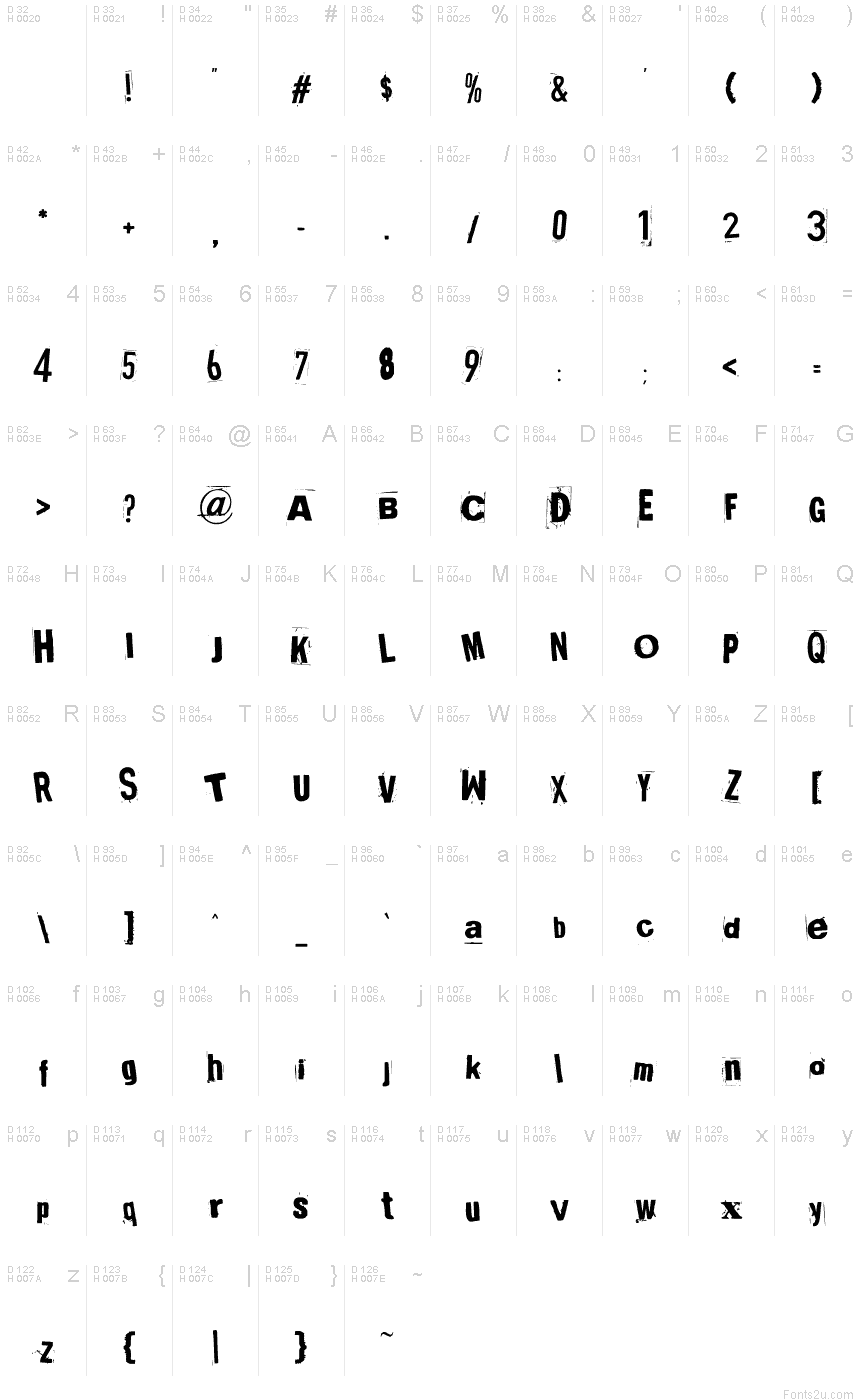
Broken 15
Broken 15 font by Eduardo Recife is a free distorted display typeface that looks like it’s been torn from photocopied posters and stamped down with thick, inky blocks. Letters tilt, stutter, and overlap slightly, with rough edges and splattered textures that feel raw and hand-made rather than digitally polished. It has the energy of a grimy street flyer or DIY zine—loud, uneven, and full of character.
Using Broken 15, you can push attitude to the front in gig posters, album covers, horror titles, protest graphics, streetwear prints, and bold social media promos. This free font thrives at large sizes where its scuffed details and jittery rhythm really show. For supporting text, pair it with a simple, condensed sans serif and let Broken 15 handle just the headlines or single-word punches.